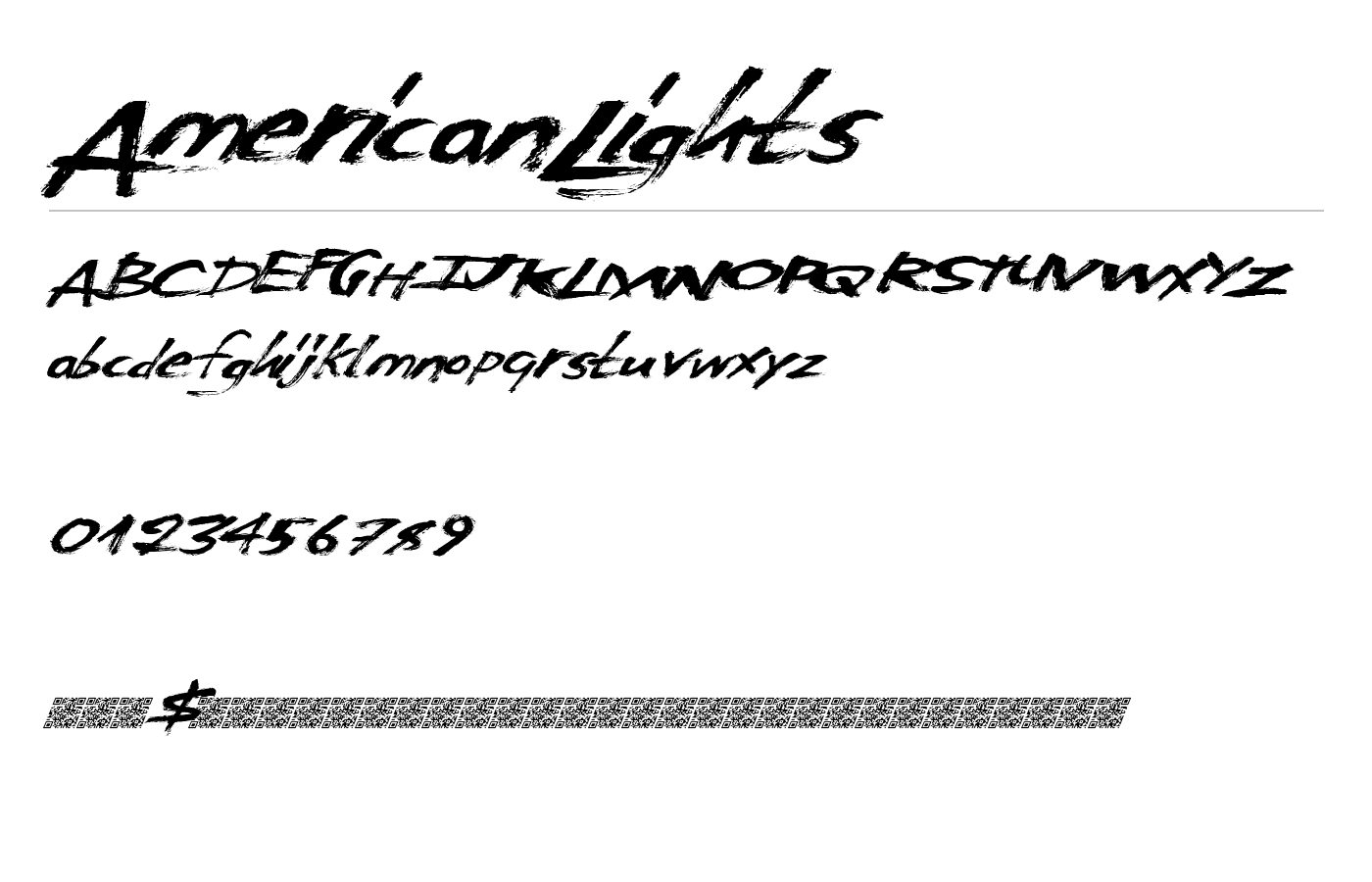
AmericanLights is an energetic and expressive brush script font with a hand-painted feel, characterized by its dynamic strokes and textured edges. Its casual, artistic style brings a lively and edgy personality, making it perfect for creative branding, posters, and headlines that need a bold, handcrafted touch. This font works best in designs that aim to convey authenticity and informal charm with a striking visual impact.
AmericanLights Font
About AmericanLights Font